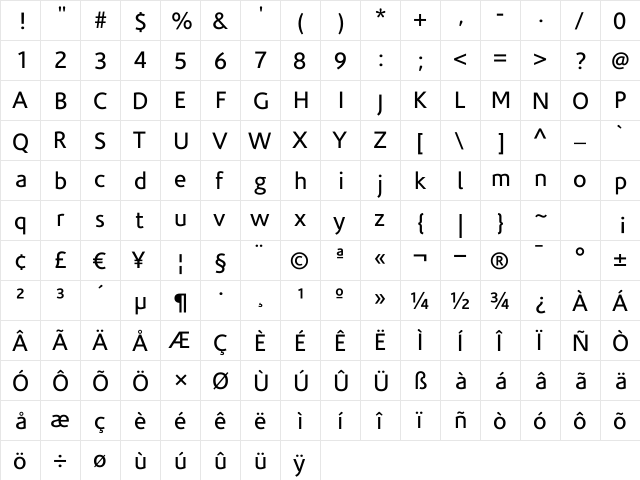
CorisandeRegular Font Preview
CorisandeRegular Regular
CorisandeRegular Font Details
Design Context for CorisandeRegular Typeface
CorisandeRegular offers clean, dependable letterforms without strong stylistic allegiance, making it a practical choice for designers who need flexibility.